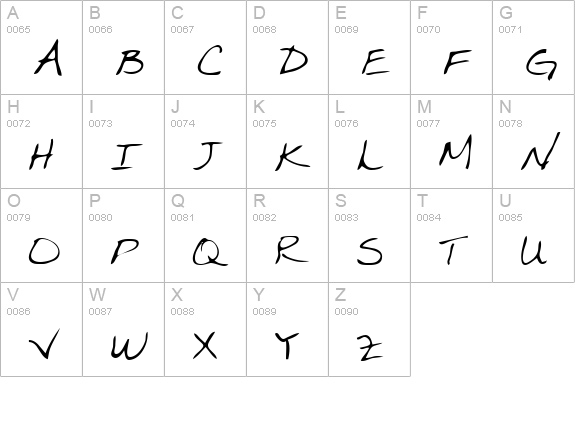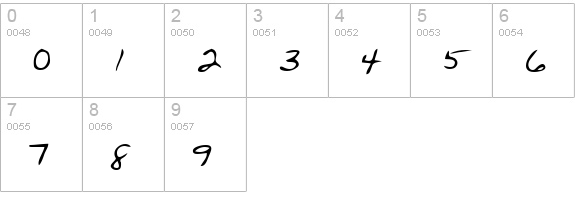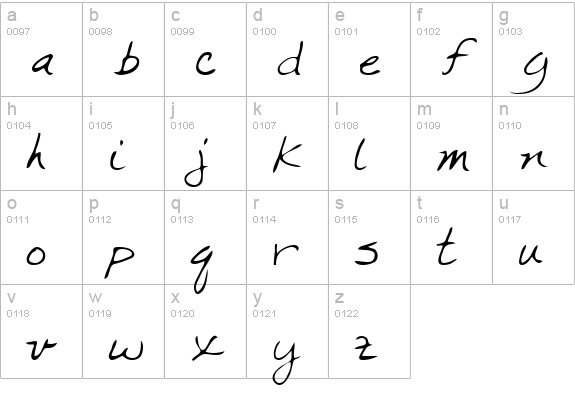
Marka Regular Font Details
Marka Regular is the standard, neutral variant in the Marka typeface family \xE2\x80\x94 well suited to general body text, paragraphs, and standard typographic work.
Marka Regular font is a modern and versatile typeface that exudes elegance and professionalism. It is perfect for a wide range of design projects, including branding, advertising, editorial, and more. With its clean lines and balanced proportions, Marka Regular font adds a touch of sophistication to any design. Its legibility ensures that your message is clearly communicated, while its stylish curves and subtle details add a touch of personality. One of the best features of Marka Regular font is that it is freely available to download at FontsMarket.com. This means that you can easily access and use this font for all your design needs without any hassle. Whether you are a professional designer or a casual enthusiast, you can enjoy the benefits of this font without any cost. Marka Regular font is designed with attention to detail, ensuring that each character is meticulously crafted to perfection. The letterforms are well-balanced, making it easy to read even at small sizes. This makes it an ideal choice for both print and digital mediums. Whether you want to create stunning logos, eye-catching headlines, or elegant body text, Marka Regular font has got you covered. Its versatility allows it to adapt to various design styles and contexts, making it a valuable addition to any designer's toolkit. In conclusion, Marka Regular font is a must-have for anyone looking to elevate their design projects. With its sleek and sophisticated look, it adds a touch of professionalism and elegance to any design. And the best part is, it is freely available to download at FontsMarket.com. So why wait? Start using Marka Regular font today and take your designs to the next level.